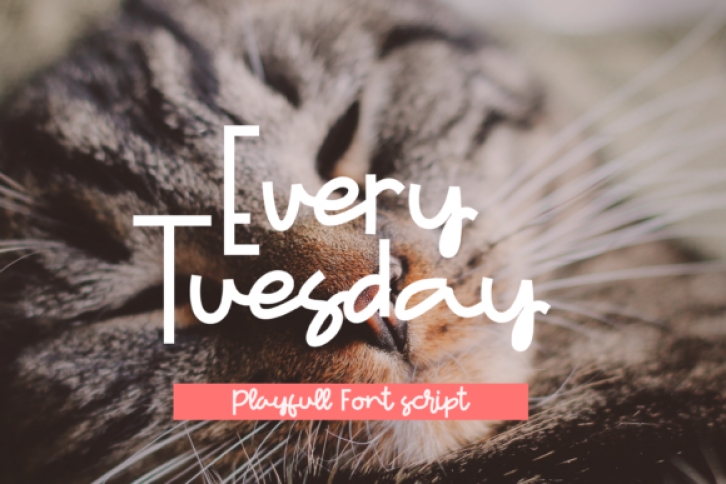
Every Tuesday is a fun and relaxed handwritten font. It is perfectly suited for any creative projects that need a modern look combined with a natural, handwritten touch!